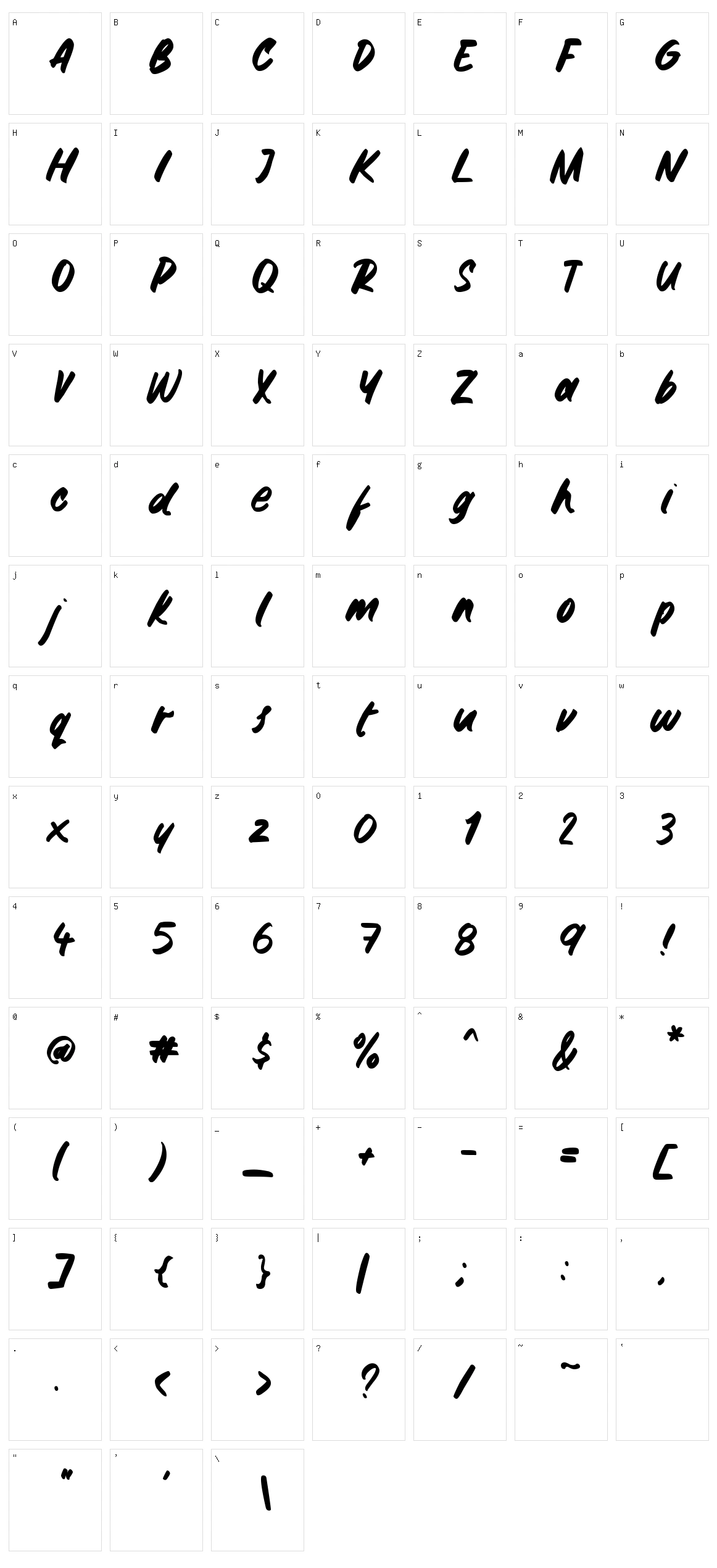
The free font Gemini Brush is carefully designed by Zansari, showcasing a thoughtful balance of creativity and usability and falls under the Script font style. When you download the ZIP file, it contains only 60.28 KB of font files, making it lightweight and quick to download. Please review the license details below to understand permitted usage and distribution rights. If license information is not available, we recommend using this font for personal projects only or contacting the author directly for commercial usage permissions.